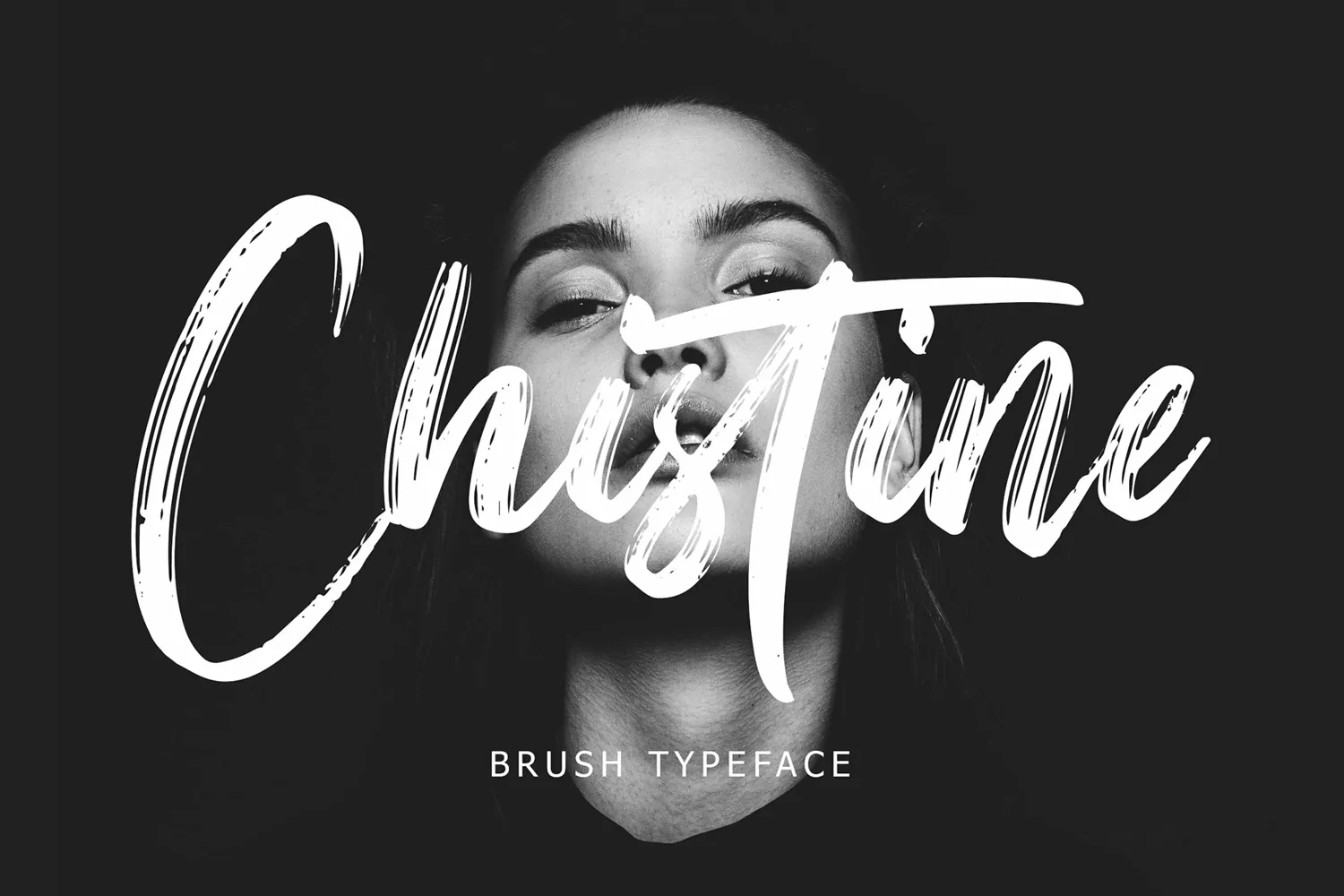
Christine Brush Typeface
Christine
Christine is a brush typeface can make your text appear elegant, luxurious, and modern!Christine is perfect for branding projects, logo, wedding designs, social media posts, advertisements, product packaging, tshirt design, product designs, label, photography, watermark, invitation, stationery and any projects.What's Included :
Christine Brush Typeface